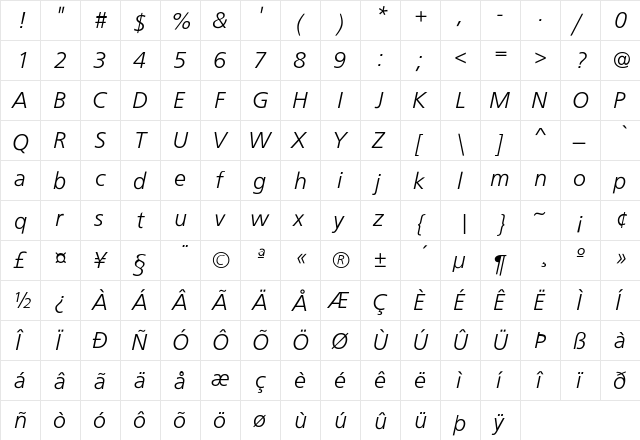
FrugalSans-LightItalic Regular
Design Context for FrugalSans-LightItalic Typeface
FrugalSans-LightItalic takes a measured approach to typography — its balanced proportions and neutral character make it a reliable workhorse for both digital and print work. Its italic angle brings a sense of urgency and motion to the letterforms. The delicate stroke weight brings airiness and refinement to layouts.
Pro Tip: Use FrugalSans-LightItalic for emphasis, pull quotes, and subheadings where its slanted energy can add rhythm to the layout.